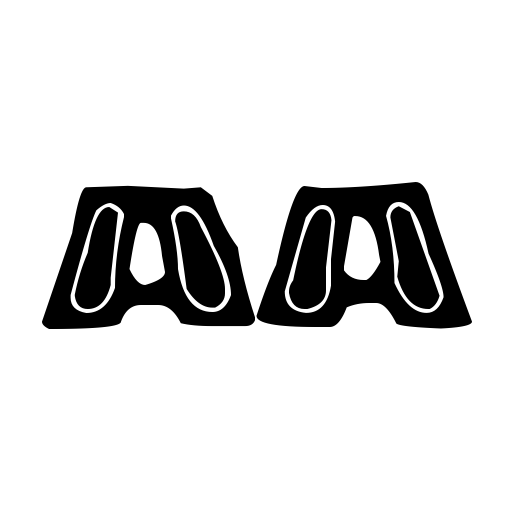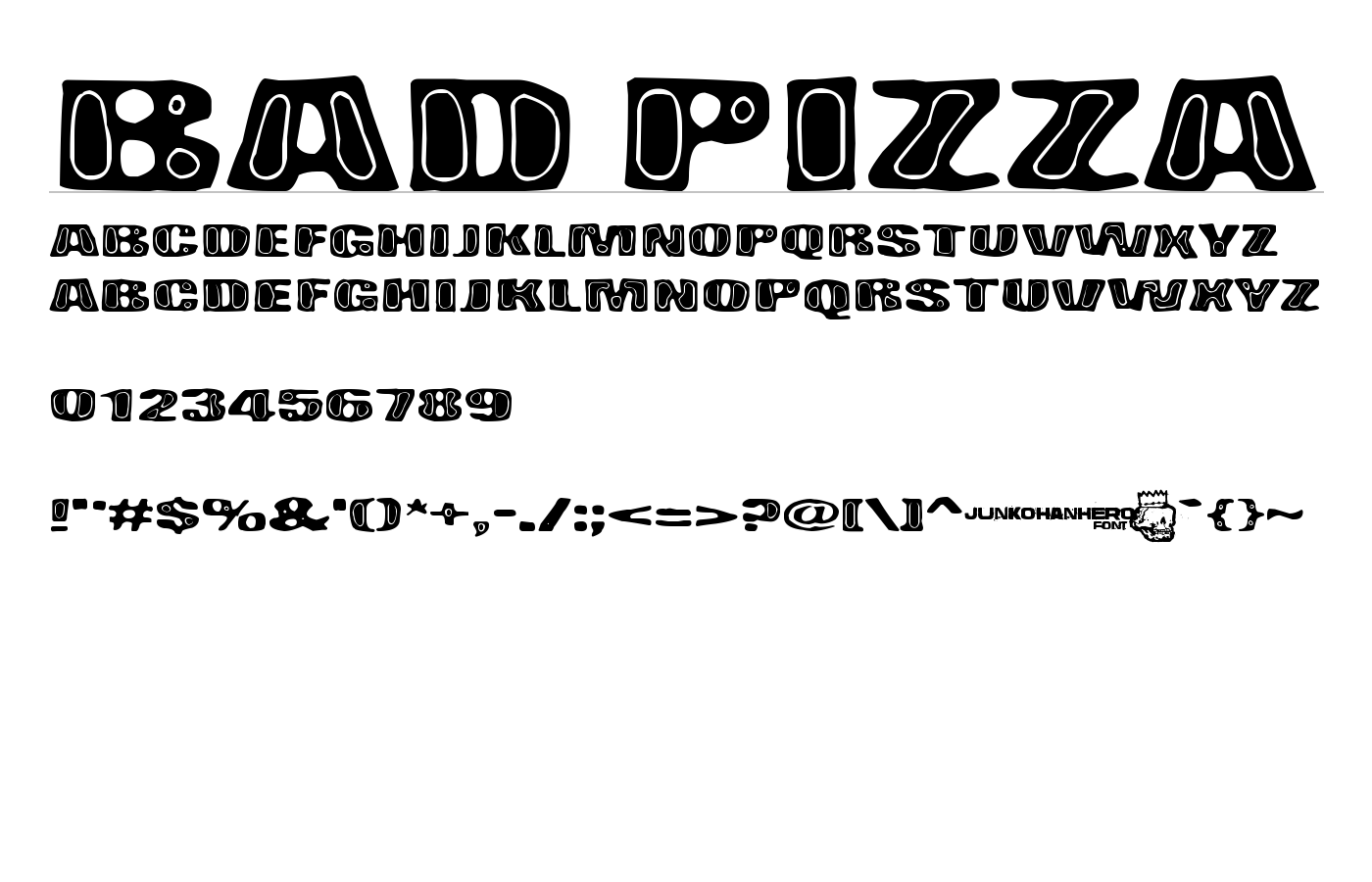
Bad Pizza Font is a bold, playful display typeface with chunky, irregular letterforms that give it a quirky, hand-crafted feel. Its heavy weight, rounded shapes, and lively internal details make it perfect for fun, eye-catching designs like posters, logos, and packaging that want to convey a casual, creative personality. This font works especially well when you want to add a unique, informal touch that stands out with character and charm.
Bad Pizza Font
| Font family | Bad Pizza Font |